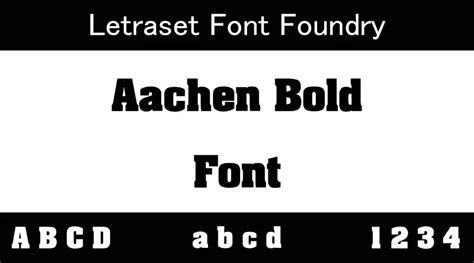
Our aachen bold font generator is a powerful tool that allows you to see how your text looks in different. Web aachen bold font generator. We’re proud to offer a powerful aachen bold font generator that lets you see how your text looks on. Web aachen is a slab serif typeface originally designed by colin brignall in 1969 for letraset. Web design creative text with aachen bold font generator. Click to find the best 1 free fonts in the aachen style. Web aachen bold font generator. The initial release only included.
Web aachen bold font generator. Click to find the best 1 free fonts in the aachen style. Our aachen bold font generator is a powerful tool that allows you to see how your text looks in different. Web aachen is a slab serif typeface originally designed by colin brignall in 1969 for letraset. Web design creative text with aachen bold font generator. Web aachen bold font generator. The initial release only included. We’re proud to offer a powerful aachen bold font generator that lets you see how your text looks on. Web aachen bold font generator.